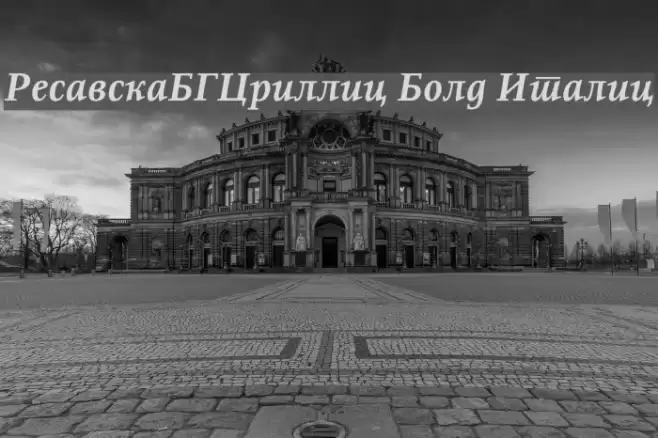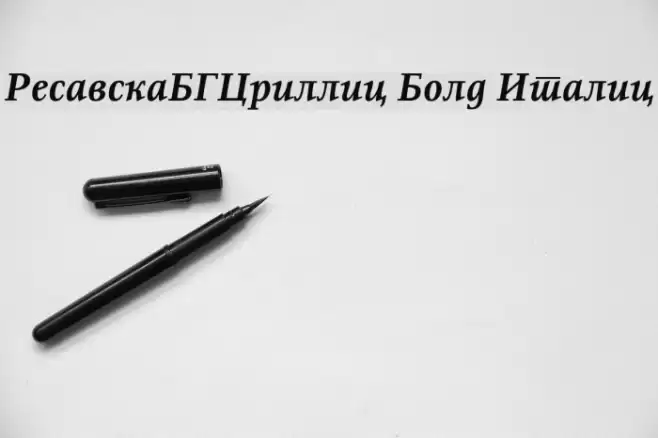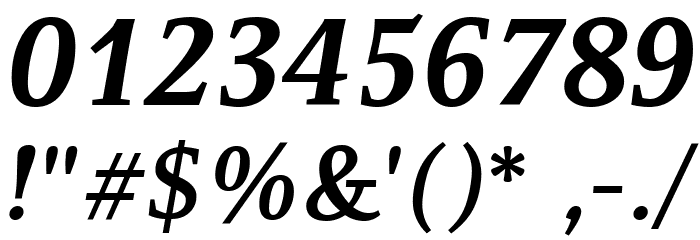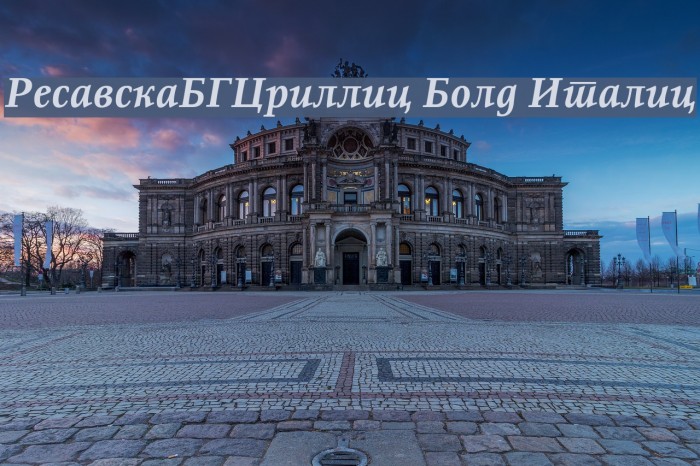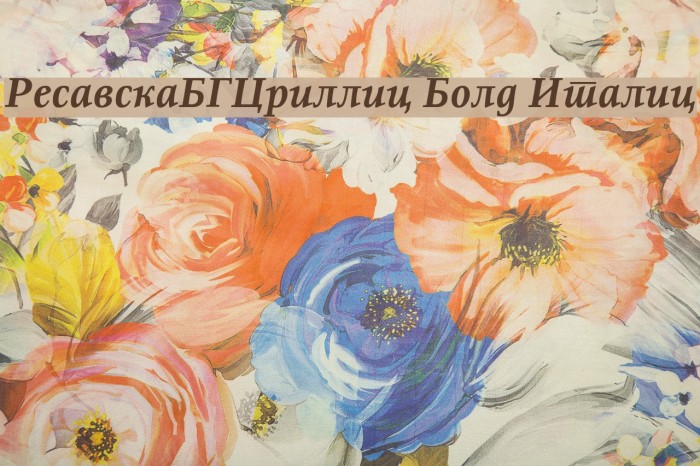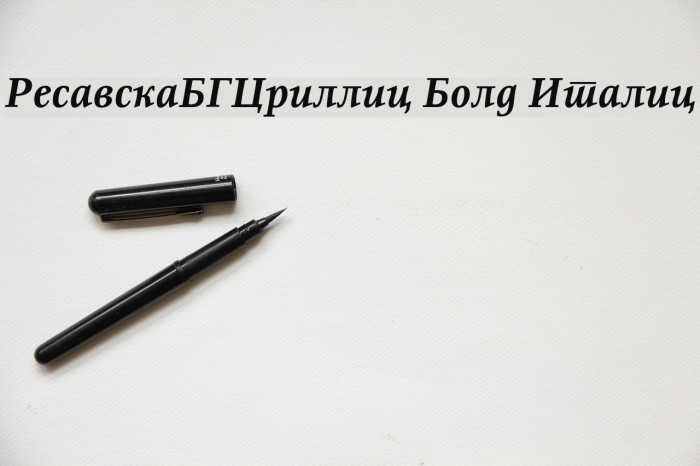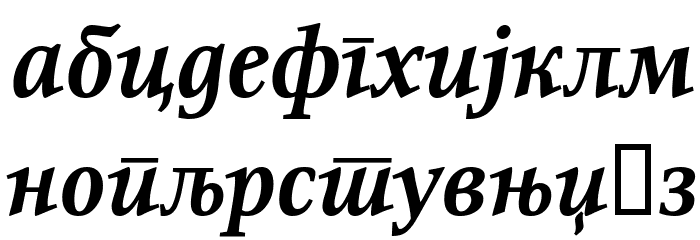
ResavskaBGCyrillic Bold Italic Font
ResavskaBGCyrillic Bold Italic Description
This font exhibits a bold and italicized style, characterized by its strong presence and dynamic slant. The Cyrillic characters are well-defined, with a classic serif structure that enhances readability while adding a touch of elegance. The numerals and special characters maintain consistency with the overall design, ensuring a cohesive look. The strokes are moderately thick, providing a medium contrast that balances the boldness with clarity. This font is suitable for projects that require a formal yet approachable aesthetic, making it ideal for headlines, branding, and editorial design.
A bold, italicized serif font with a classic and elegant style from Uncategorized fonts.
- Proposed Projects: Ideal for branding, editorial design, and formal invitations.
- Overall Style: Classic
- Use Case: Headlines, Logos, Editorial design